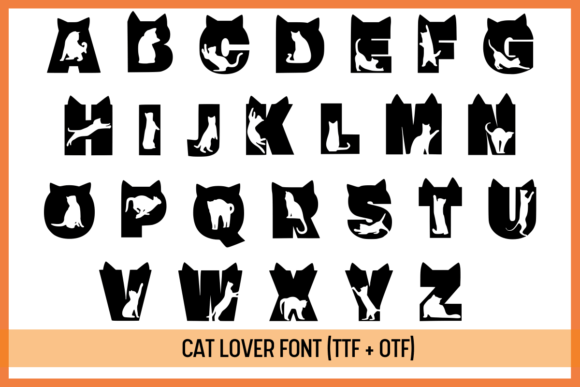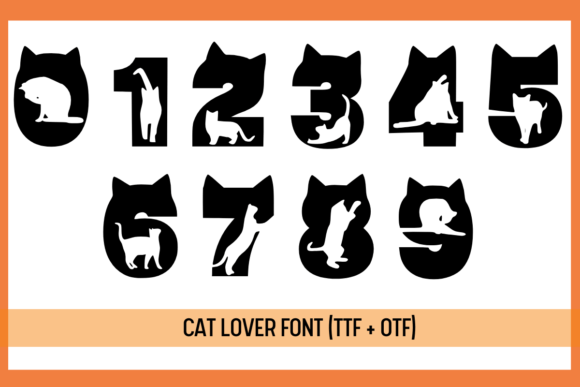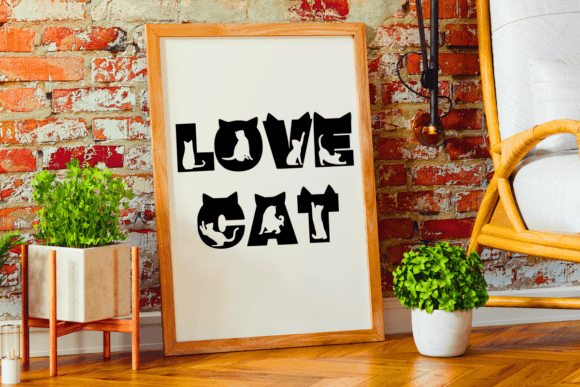
Cat Lover Font
Cat Lover is an incredibly unique decorative font. Masterfully designed to become a true favorite, this font has the potential to bring each of your creative ideas to the highest level!